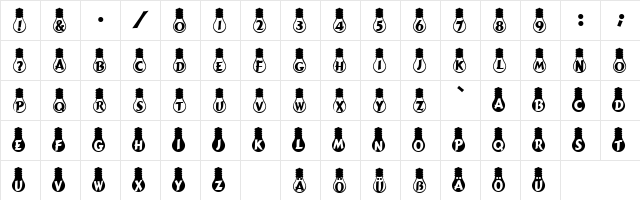
Armleuchter DB Heavy
Design Context for Armleuchter DB Typeface
Armleuchter DB is a composed and adaptable typeface that performs quietly and consistently across a wide range of design contexts.